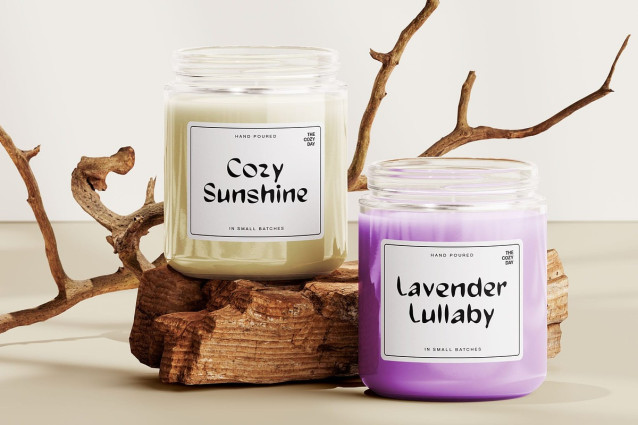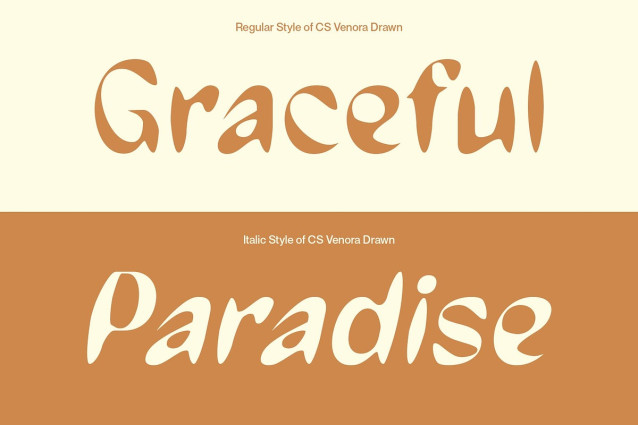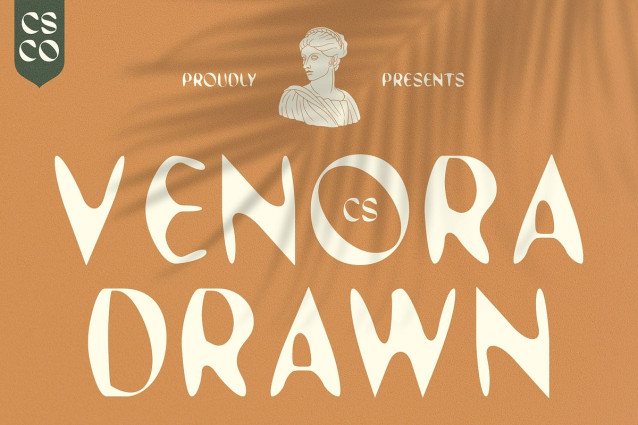
CS Venora Drawn Font
CS Venora Drawn Font is a display sans serif font that merges contemporary clarity with the charm of mid-century design. Featuring clean lines, open shapes, and well-balanced proportions, it presents a versatile and timeless appearance that adapts beautifully to a wide range of creative needs—from modern branding to aesthetic layouts.
Retro Influence with Subtle Warmth While its structure is grounded in modern minimalism, this font has a clean and neutral look, subtly incorporating rounded edges and vintage-inspired geometry that evoke a soft nostalgic atmosphere. These retro hints offer visual warmth and familiarity, giving the typeface a tone that feels both stylish and approachable.
Hand-Drawn Texture for Personality and Depth The addition of a drawn effect enhances the font with a handcrafted texture, introducing organic irregularities that infuse each letter with character and authenticity. This artistic finish creates a friendly, tactile quality that balances its clean silhouette with expressive imperfection—ideal for creative projects that seek a more personal, human touch.
Ideal for Aesthetic and Creative Applications Whether used for lifestyle branding, editorial design, product packaging, or social content, this warm font provides a clean yet character-rich aesthetic. It’s particularly well-suited for visual storytelling that blends professional polish with artisanal warmth, offering designers a flexible yet distinctive tool for modern and nostalgic design themes alike.